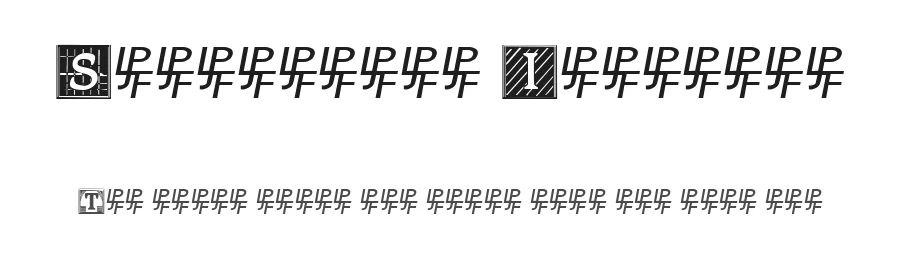
About Imperator Font
Imperator is a serif font designed by Paul Lloyd. It includes 92 glyphs, a regular weight, TTF (TrueType) format, and 107 languages. Imperator is free to download; check the license details on this page before commercial use. Serif fonts like Imperator work best for body text, editorial layouts, book covers, and classic branding.
Imperator Font is a versatile serif font that works for both headings and body text. Pair it with a contrasting sans-serif or slab serif font to add visual interest and a clear distinction between titles and body copy.
Imperator Font
by Paul Lloyd
Imperator Font is a serif typeface by Paul Lloyd, ideal for logos, invitations, branding, and creative projects.